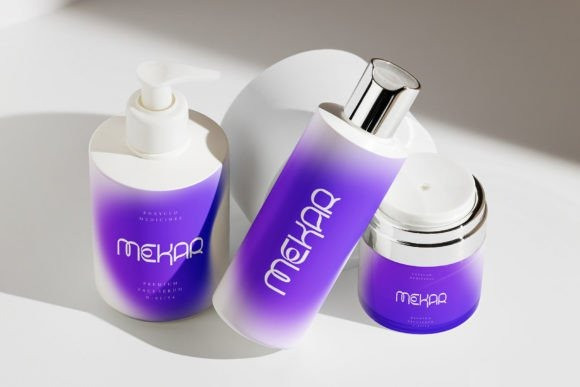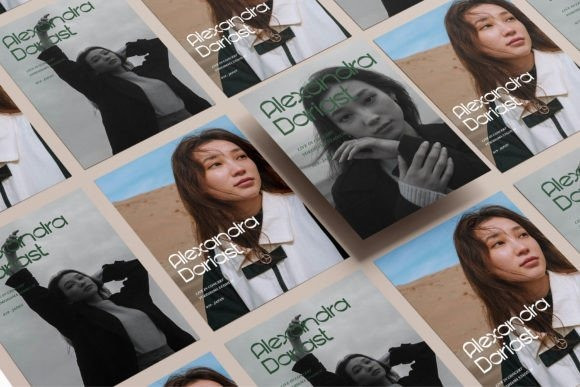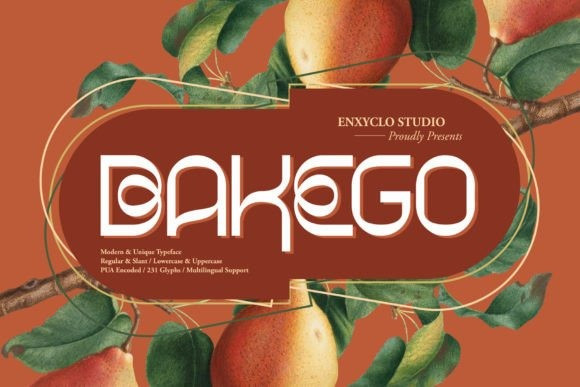
BAKEGO TYPEFACE
Bakego Typeface is a fun, unique, and modern display font. Masterfully designed to become a true favorite, this font has the potential to bring each of your creative ideas to the highest level! It was purposely crafted to be used in large point sizes, although it doesn’t lose its magic in small point sizes. It is perfect for headlines, billboards, magazines, websites, titles, posters, branding, and logos.